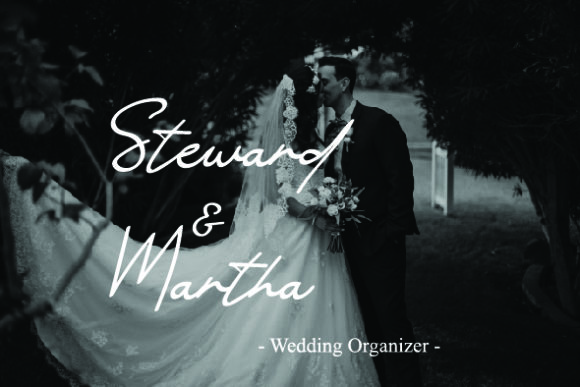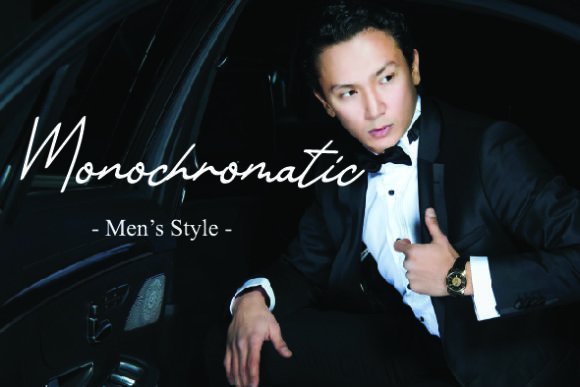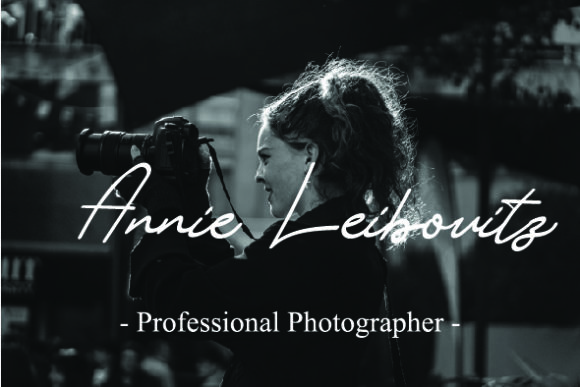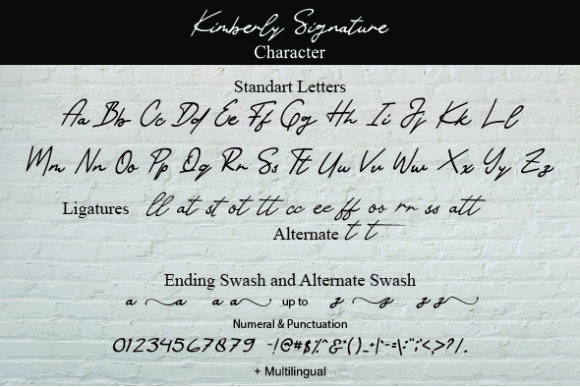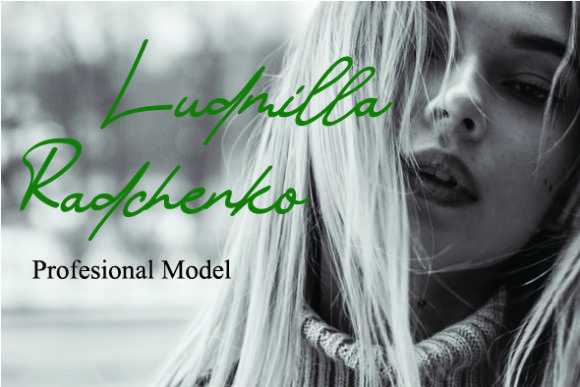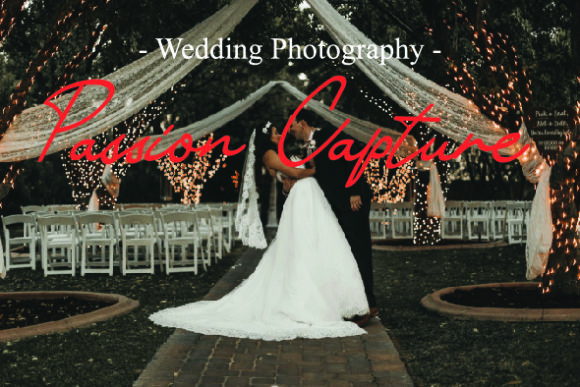
The Perfect Signature: Unlocking the Beauty of Handwritten Design
As designers, we’ve all been there – staring at a blank canvas, trying to conjure up the perfect concept, and suddenly, it hits us. The spark of inspiration. The urge to create something truly unique and beautiful. For many of us, it starts with the perfect font – one that captures the essence of our style and conveys our message. This is where the Kimberly Signature Font comes in, a timeless and versatile handwritten font that’s sure to elevate your designs.
With its relaxed and elegant style, the Kimberly Signature Font is perfect for creating stunning wedding invitations, beautiful stationery art, and eye-catching social media posts. Its versatility makes it a valuable asset for designers, allowing you to add a personal touch to any project. Whether you’re a seasoned pro or just starting out, this font is sure to become a staple in your design arsenal.
Kimberly Signature Font Key Features
- Font Family: Kimberly Signature Font is a custom, handwritten font designed for personal and professional use.
- Unique Characteristics: The font features a unique, cursive design with a mix of elegant and playful elements, making it perfect for adding a personal touch to documents and designs.
Kimberly Signature Font Review
Overall, I think the Kimberly Signature Font is a solid choice for designers looking for a elegant and sophisticated font.
- The font’s unique script style is perfect for creating a personal and professional signature.
- The variety of font weights and styles makes it easy to customize and match with different design elements.
- The font’s high quality and clear legibility make it perfect for both digital and print media.
- The font’s ornate style may not be suitable for designers who prefer a more minimalist or modern aesthetic.
- The font’s limited character set may cause issues for designers who need to create text-heavy designs.
I would recommend the Kimberly Signature Font to designers who are looking for a elegant and sophisticated font for their signature or branding. However, designers who prefer a more modern or minimalist style may want to consider other options.
Tips for Getting the Most Out of Kimberly Signature Font
For optimal results, use Kimberly Signature Font in conjunction with a clean and simple design aesthetic.
Experiment with different font sizes and colors to create visual interest and emphasis.
Kimberly Signature Font is ideal for:
Blogging and online content creation
Personal branding and social media
Wedding stationery and event invitations